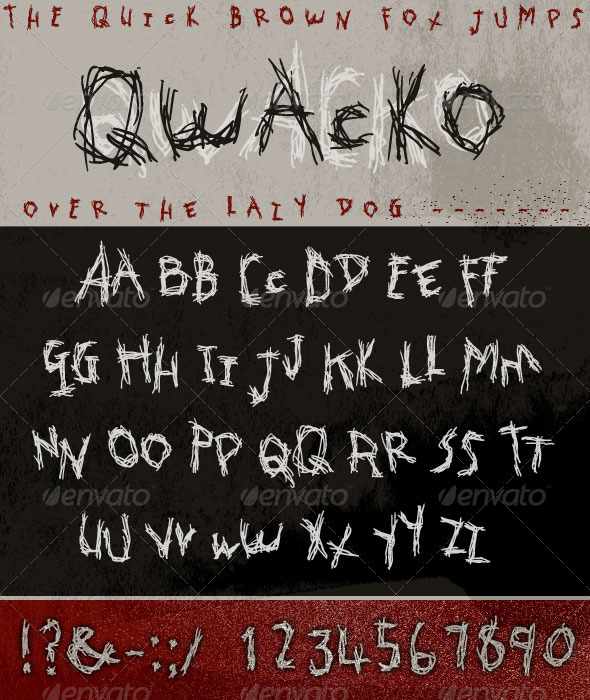
Qwacko Font; Hand-drawn Graffiti Type
Exclusive to GraphicRiver, here is Qwacko, a slightly mad CAPS typeface with an artistic, hand-drawn graffiti character. Superimpose the different versions of letters for a scratchy sketchy feel to your text. Numbers and basic punctuation included. If you need any specific characters added, just send me an email from my profile page.